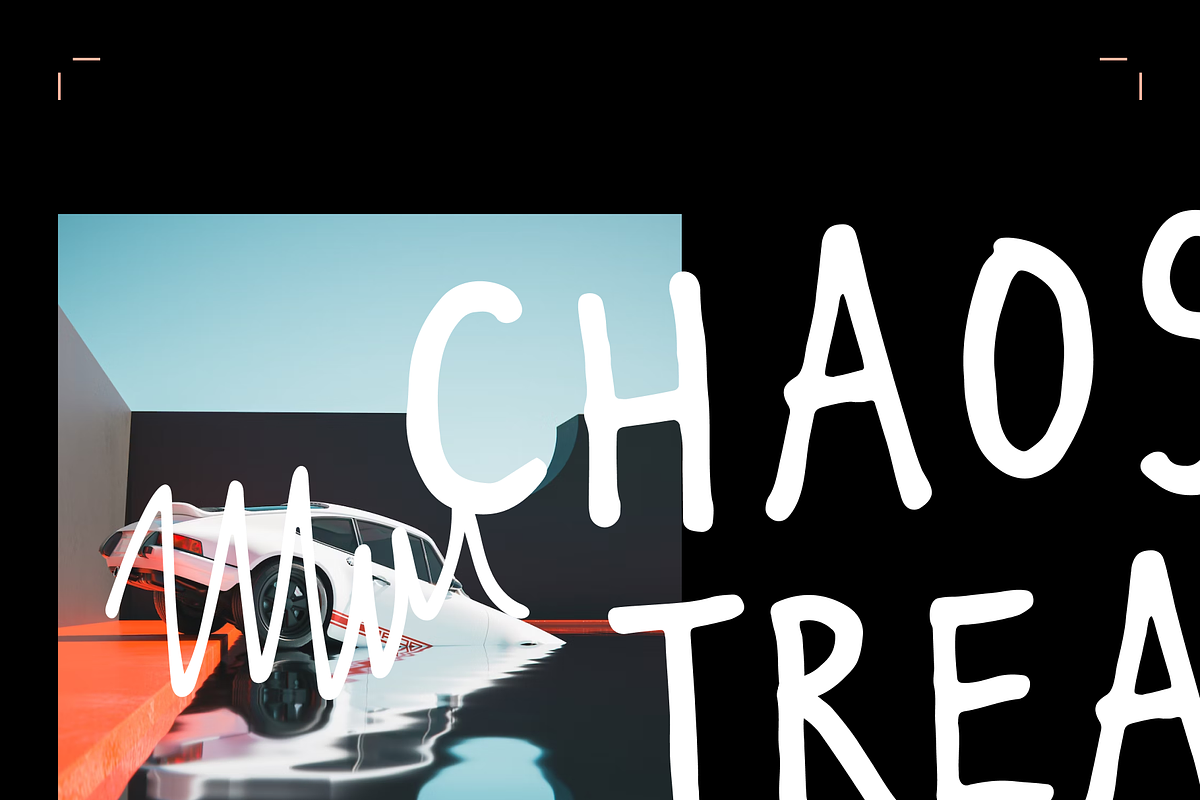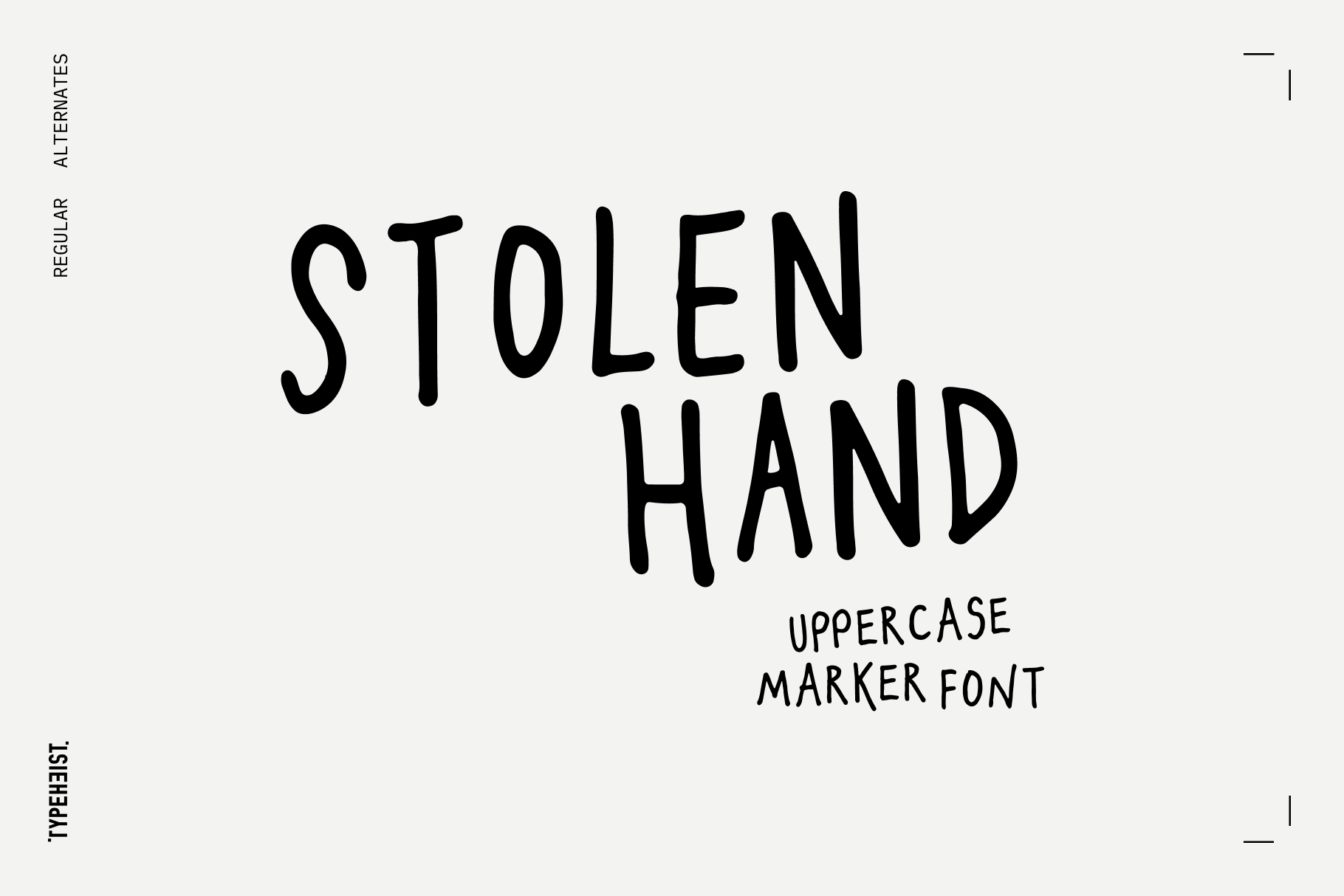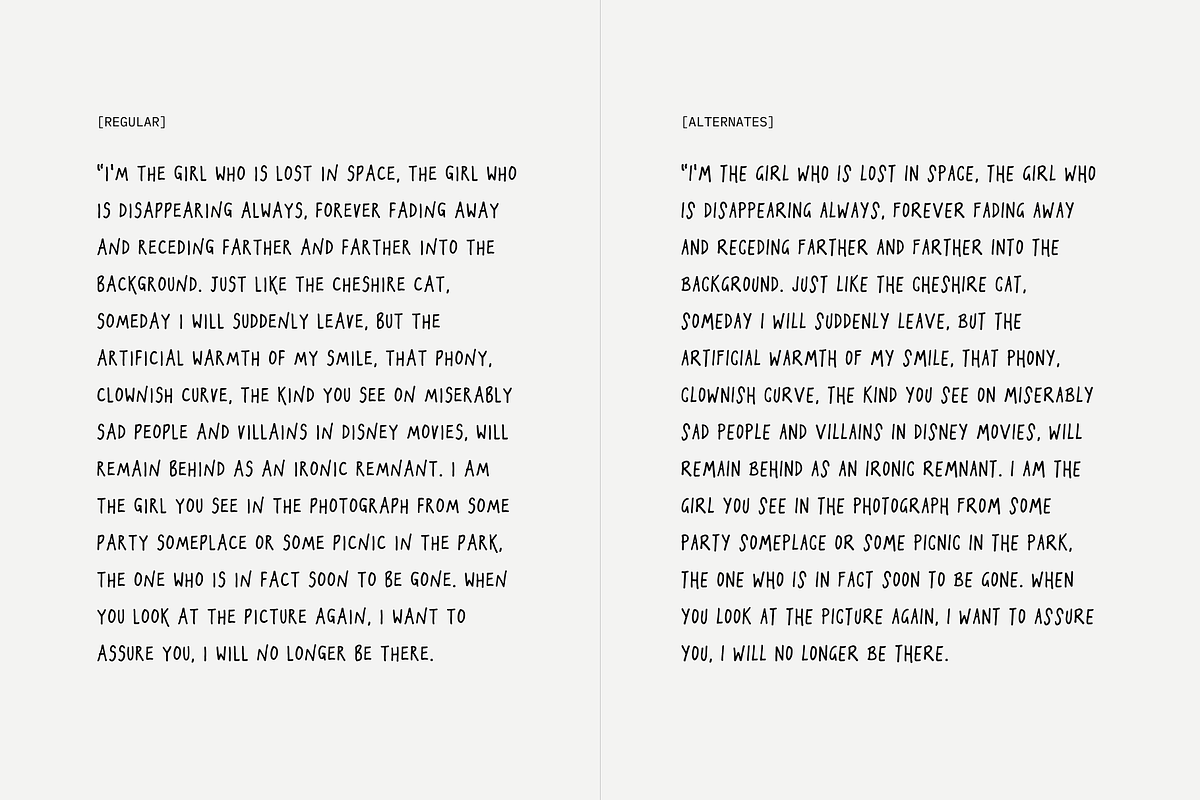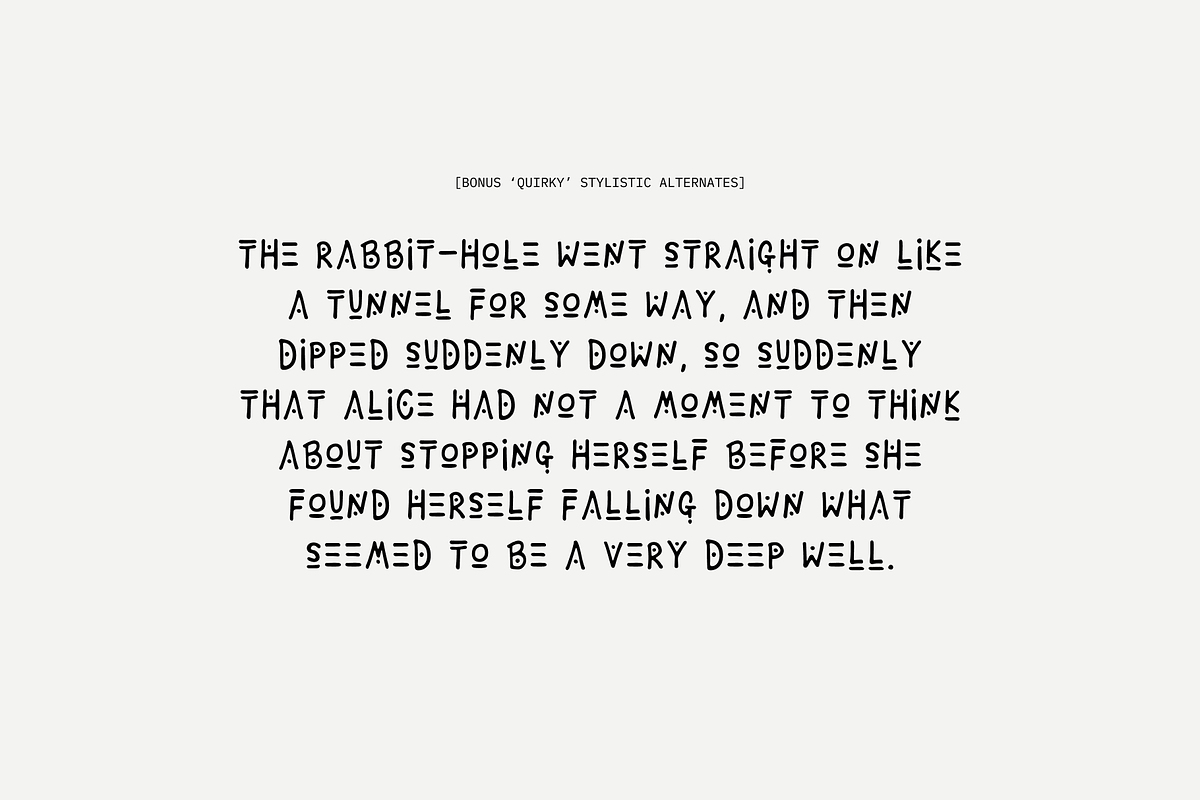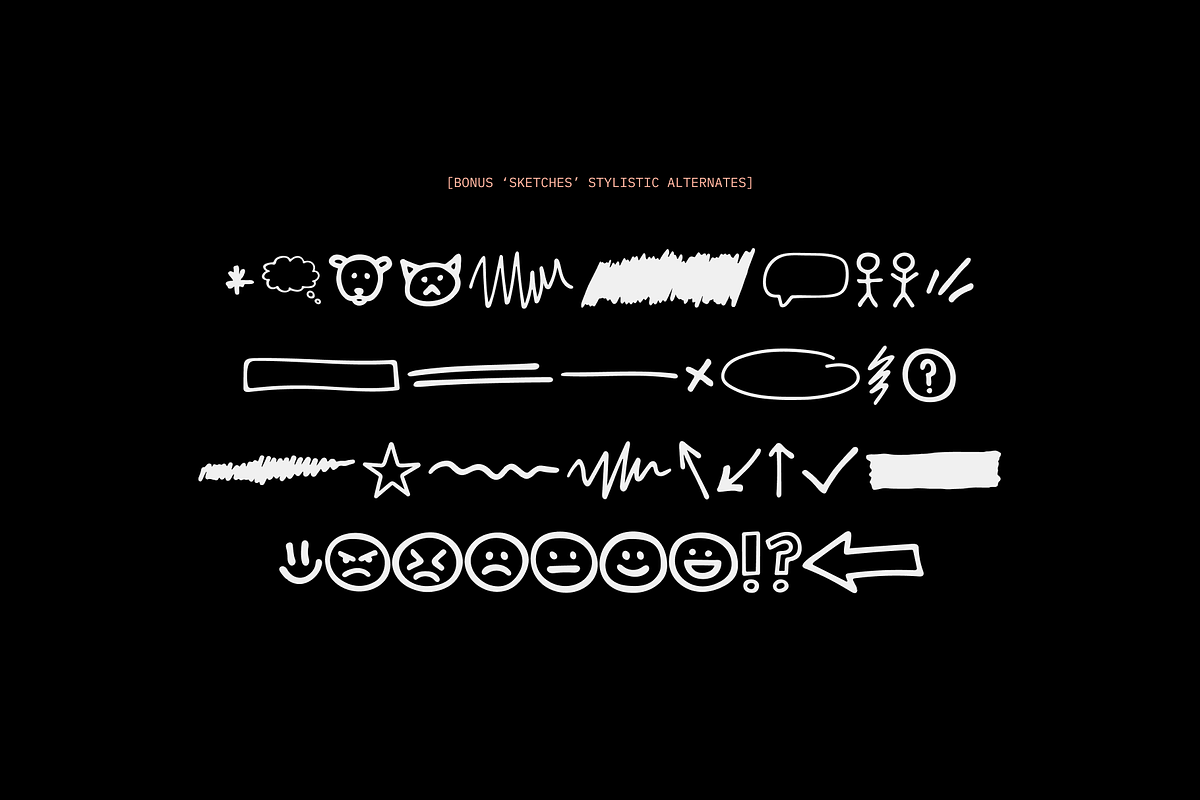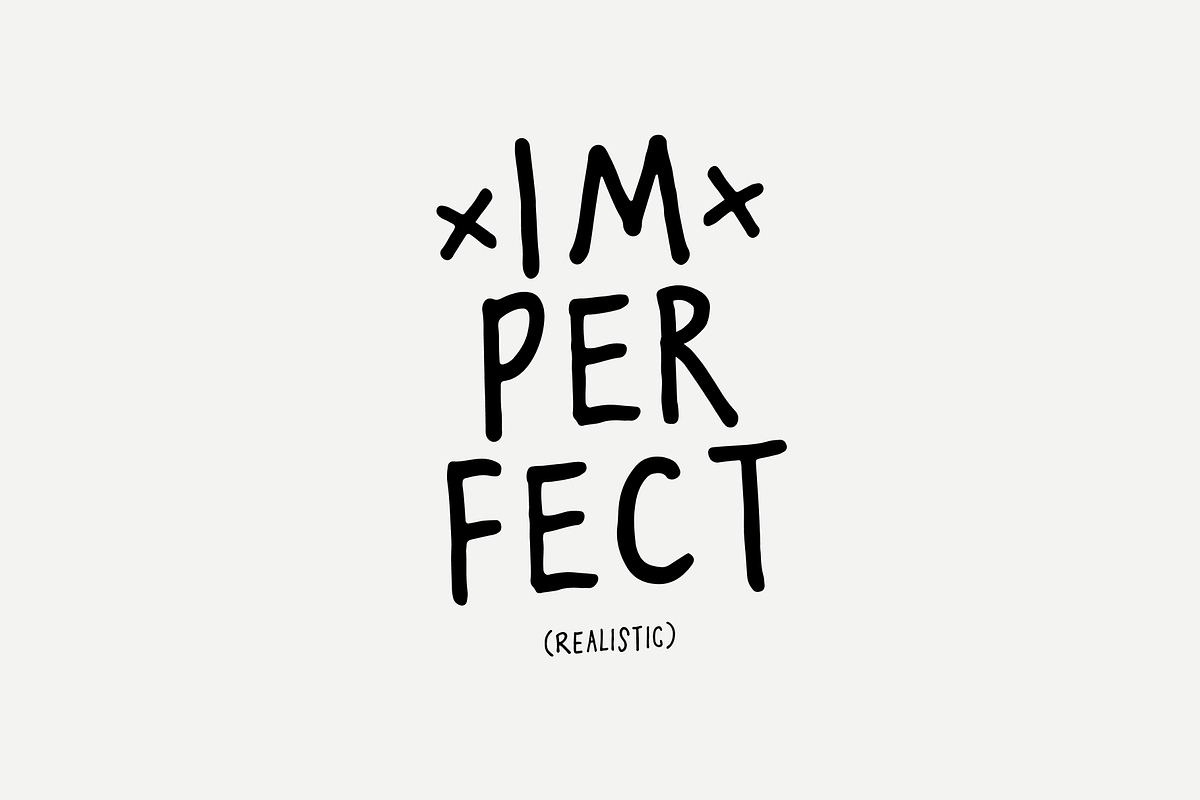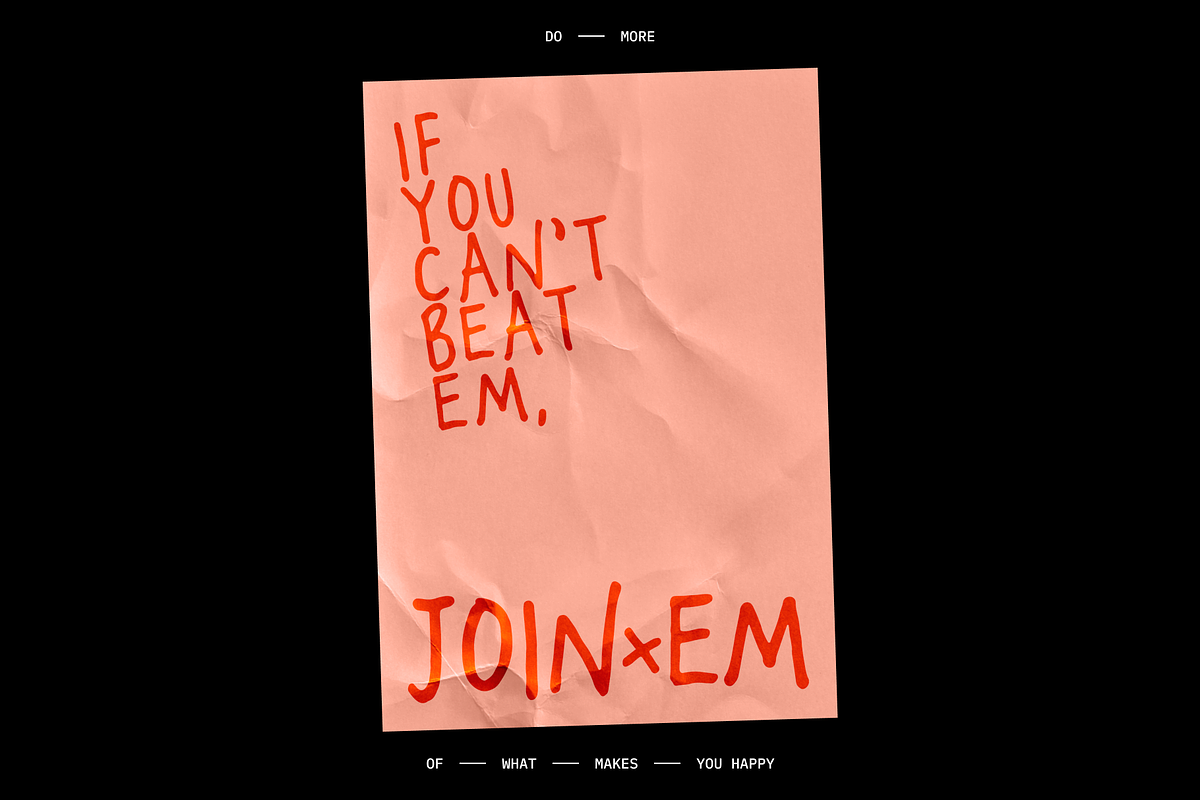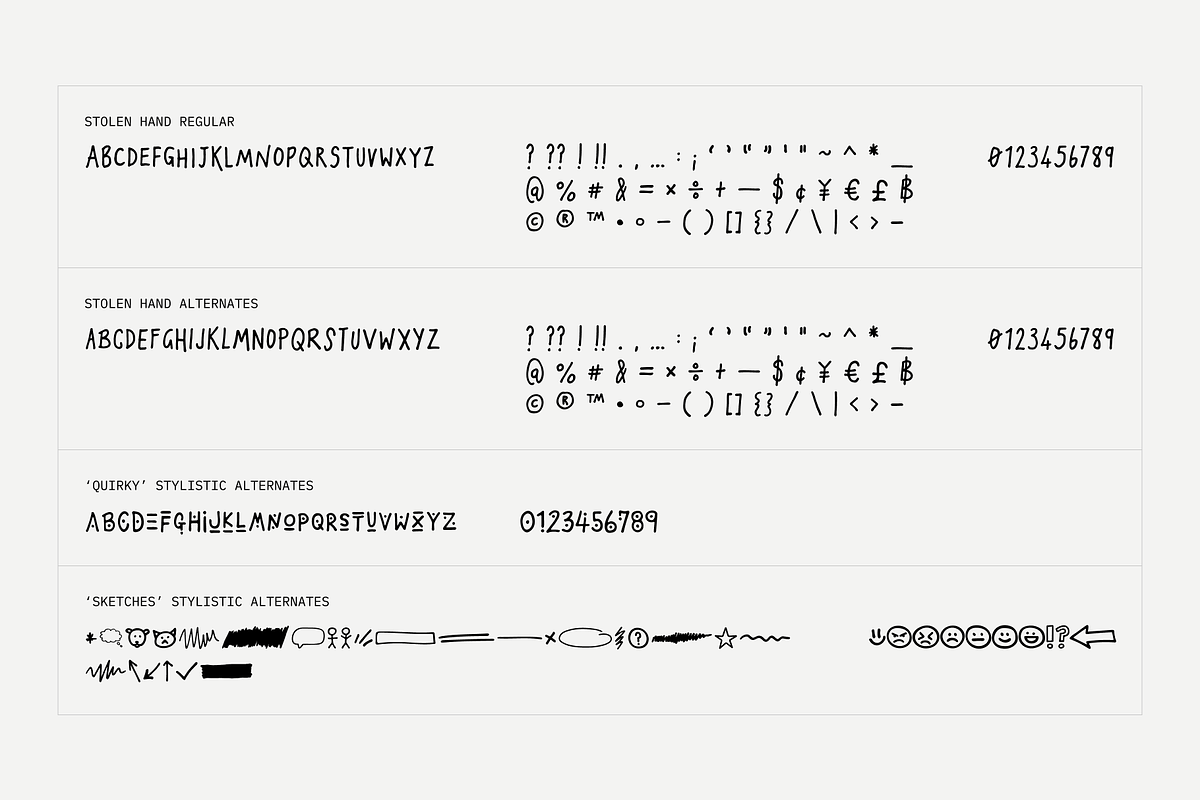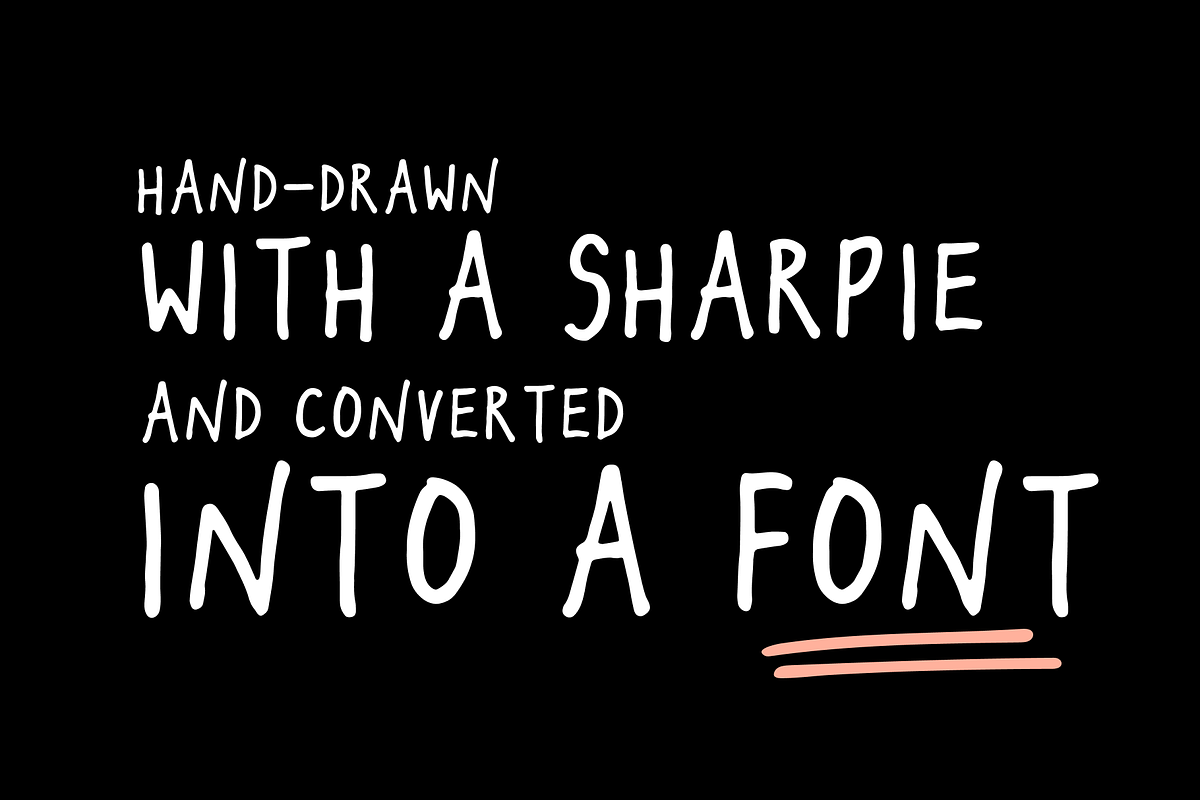
Stolen Hand Marker Font
A cool and casual font, 100% uppercase, 100% marker.
Stolen Hand is hand-drawn with a Sharpie and converted into a font - and just like a marker pen it has natural edges and realistic shapes.. Includes bonus stylistic alternates (quirky and sketch glyphs).
Perfect for designs where you need a font that's a little more rough around the edges.
- Stolen Hand Regular
- Stolen Hand Alternates
- Stolen Hand Quirky (Stylistic Alternates)
- Stolen Hand Sketches (Stylistic Alternates)